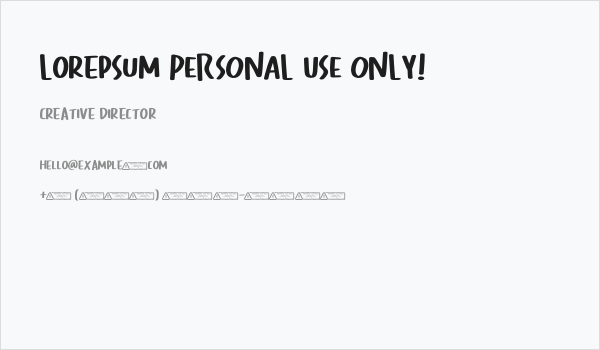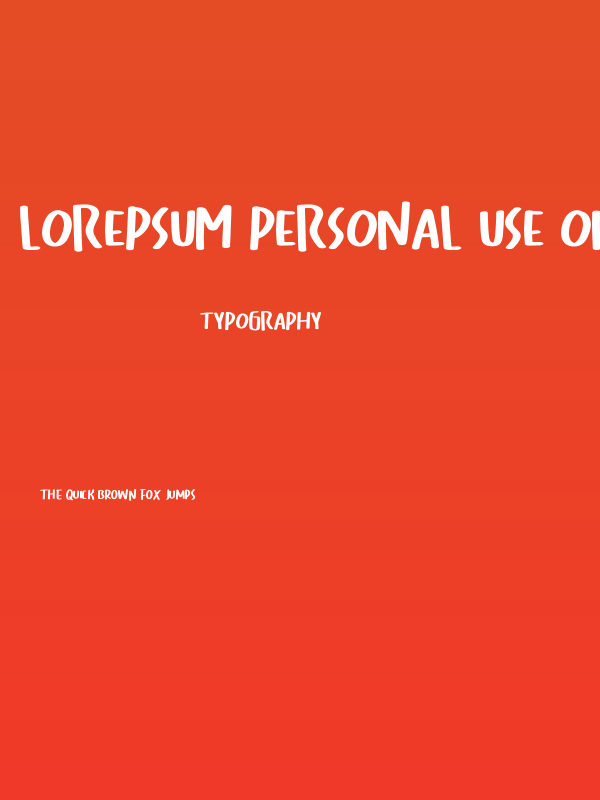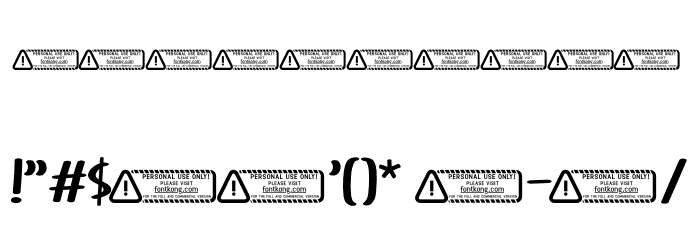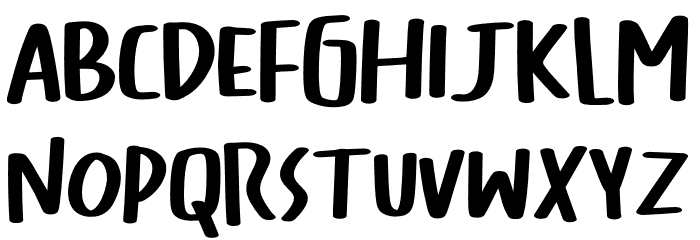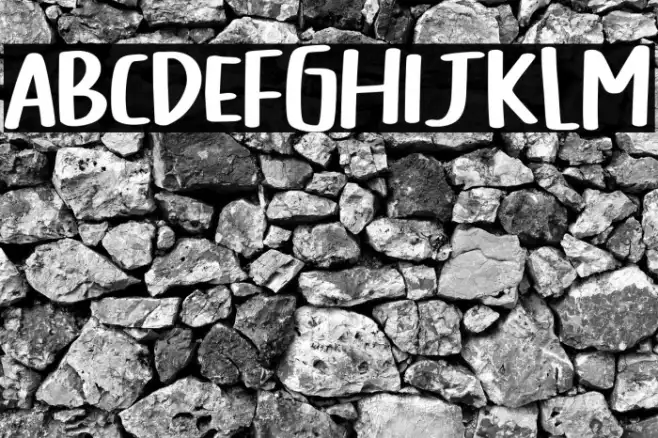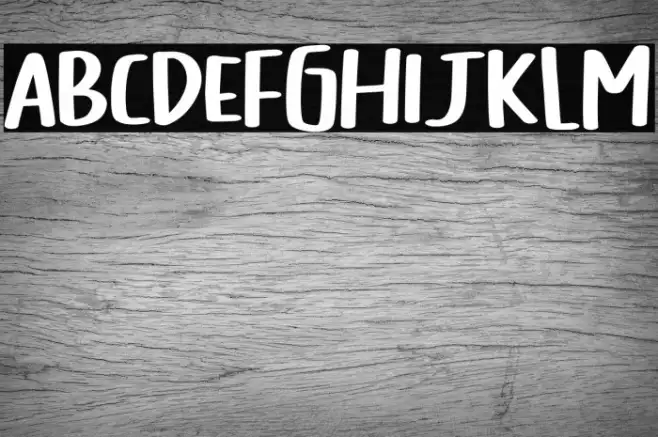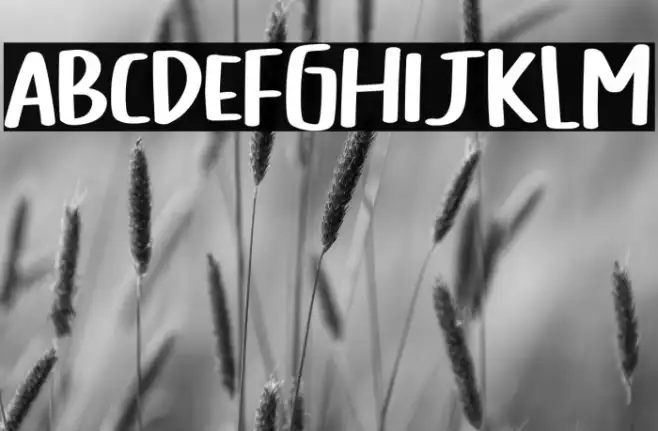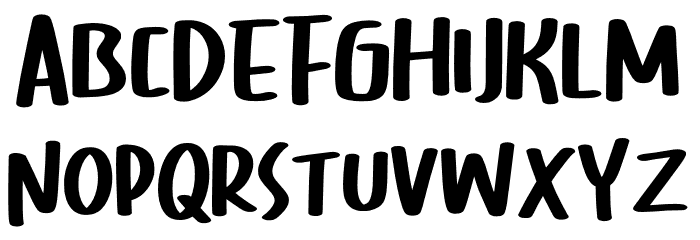
Lorepsum PERSONAL USE ONLY! Font
Lorepsum PERSONAL USE ONLY! Description
This font features a playful and bold handwritten style, characterized by its thick strokes and slightly irregular letterforms. The uppercase letters are tall and slightly condensed, while the lowercase letters maintain a consistent flow with a casual, friendly appearance. The numbers and special characters follow the same bold and informal style, making the font suitable for projects that require a personal touch. The overall design is modern and approachable, with a touch of whimsy that adds character to any text.
| Overall Style | Modern, Playful |
| Proposed Projects | Ideal for greeting cards, children's books, playful branding, and social media graphics. |